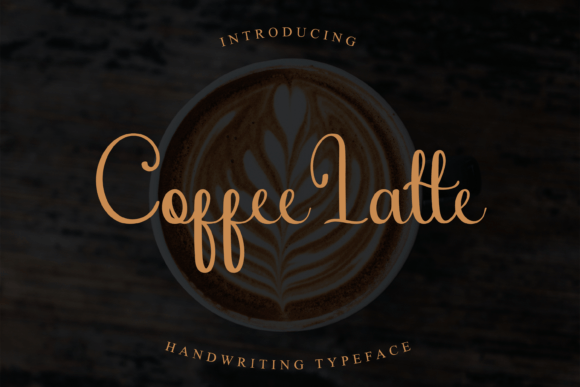
Dive into the world of Coffee Latte, a captivating script font that will transform your designs into masterpieces. With its enchanting curves and playful swirls, this font exudes a charm and personality like no other.
Step into a realm where letters dance and words come alive. Coffee Latte's elegant strokes and intricate details will elevate your projects to new heights, making them stand out from the ordinary. From logos that speak volumes to apparel designs that exude a unique style, Coffee Latte is your perfect companion.
Unleash your creativity and let your imagination soar as you explore the endless possibilities of Coffee Latte. Create prints that capture the essence of your brand or design merchandise that tells a story. The illustrative qualities of this font will turn your designs into works of art, captivating your audience with their charm and originality.
Coffee Latte is not just a font; it's an experience. It's a symphony of lines and curves that weave together to create a visual masterpiece. Let your designs shine with the elegance and sophistication of Coffee Latte, and leave an unforgettable impression on everyone who encounters your work.